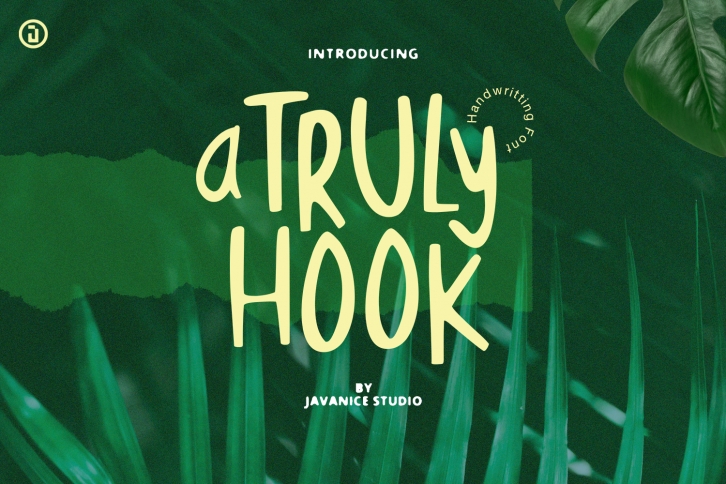
A Truly Hook is a casual and friendly handwritten font.
It is perfect for branding project, apparel, labels, magazines, books, greeting / wedding cards, packaging, fashion, make up, stationery, and any type of advertising purpose or just used to express words above the background.